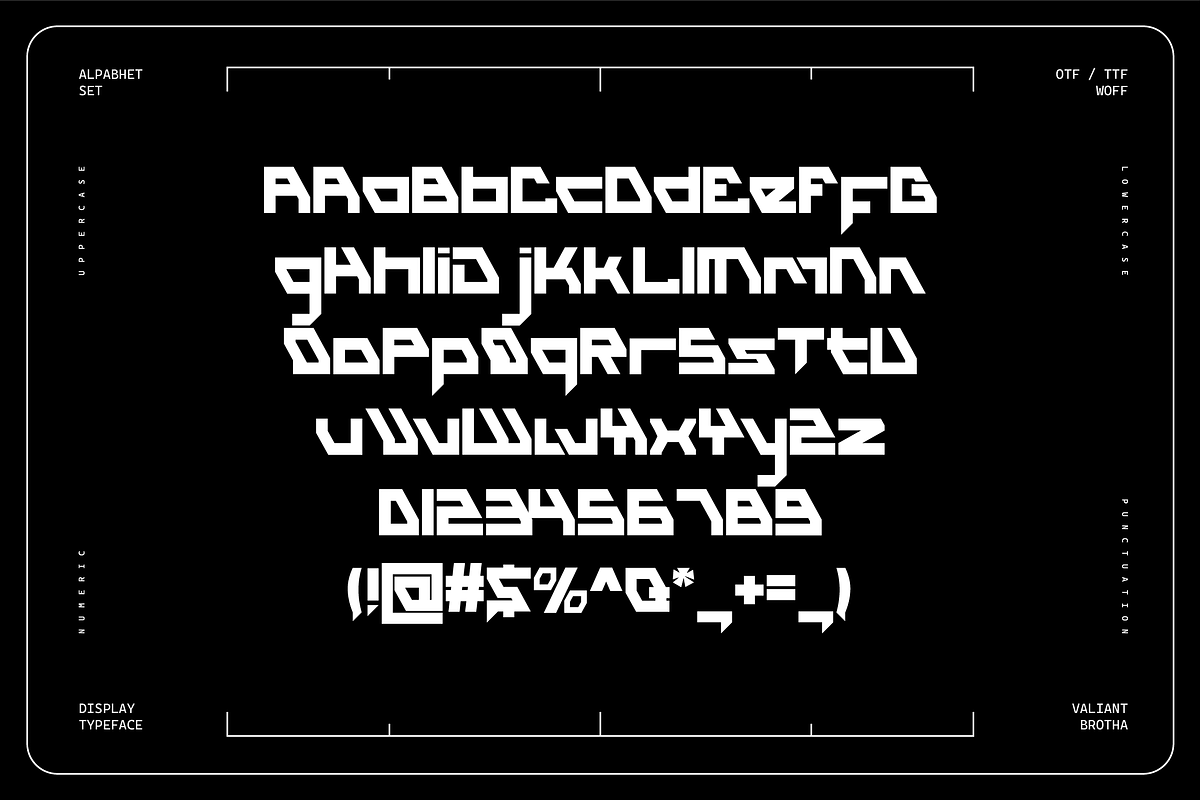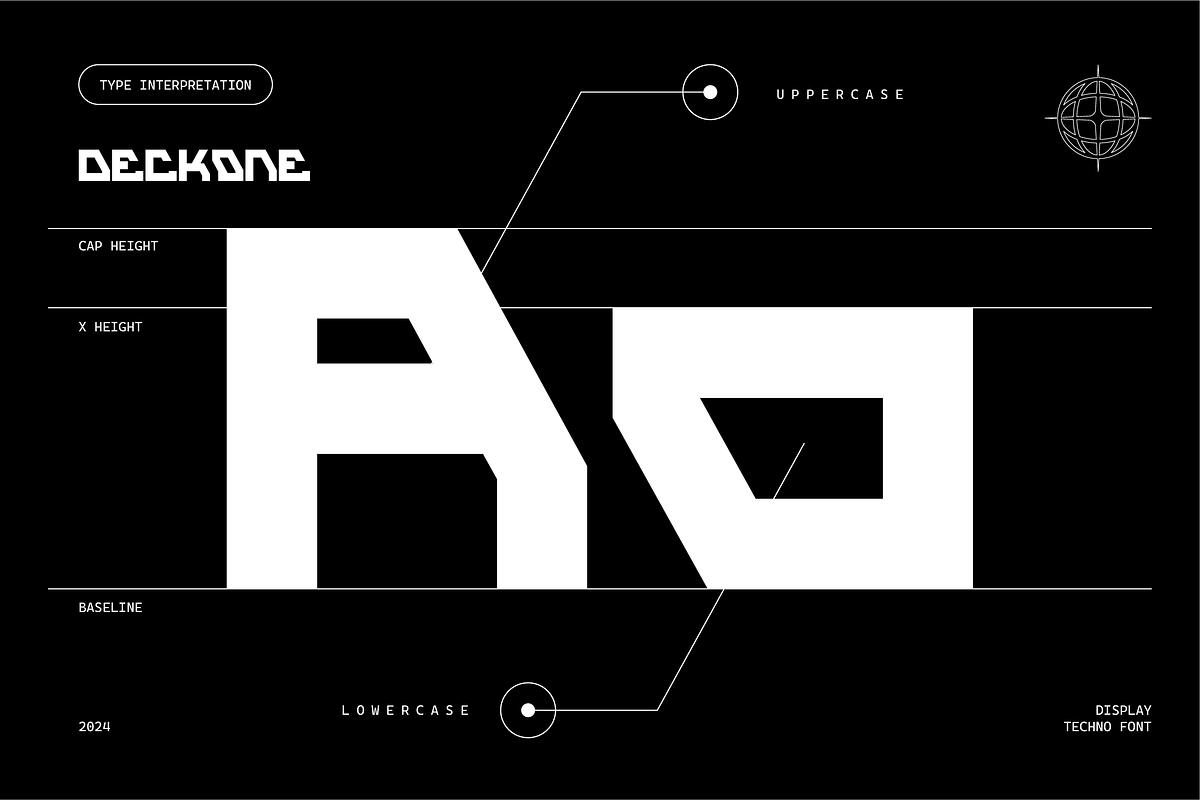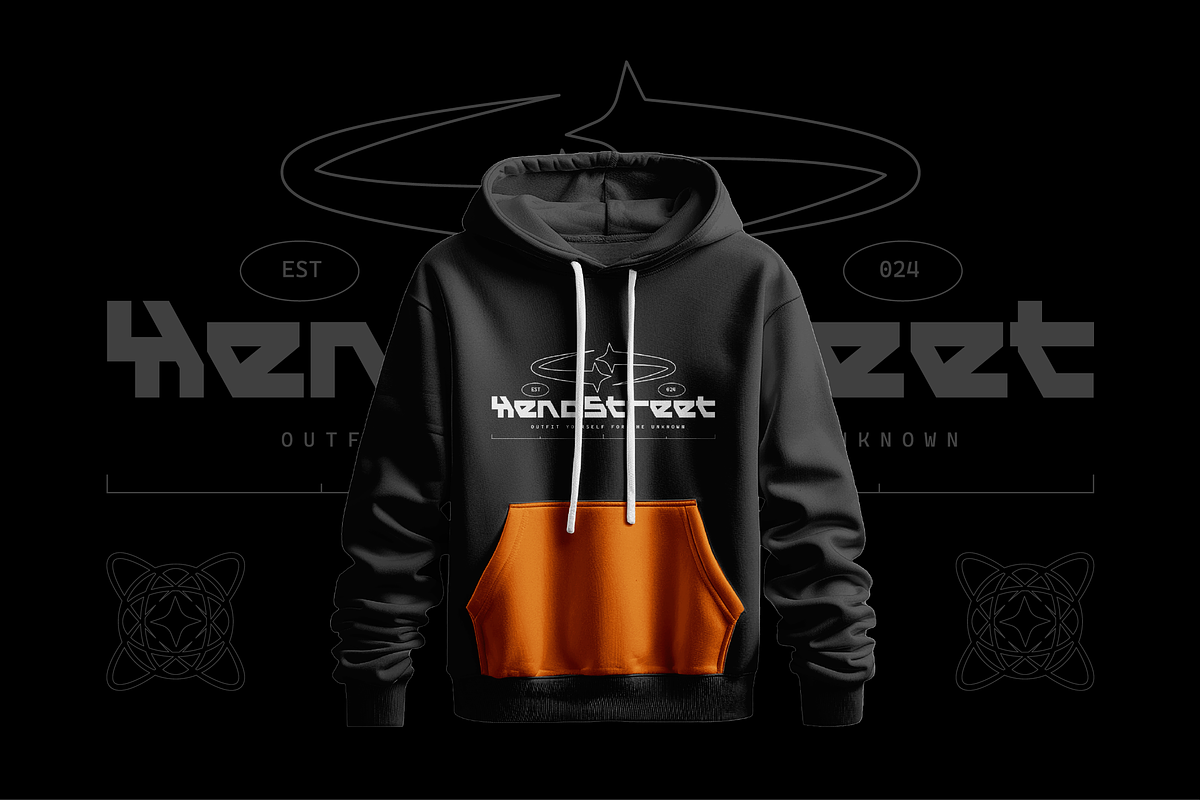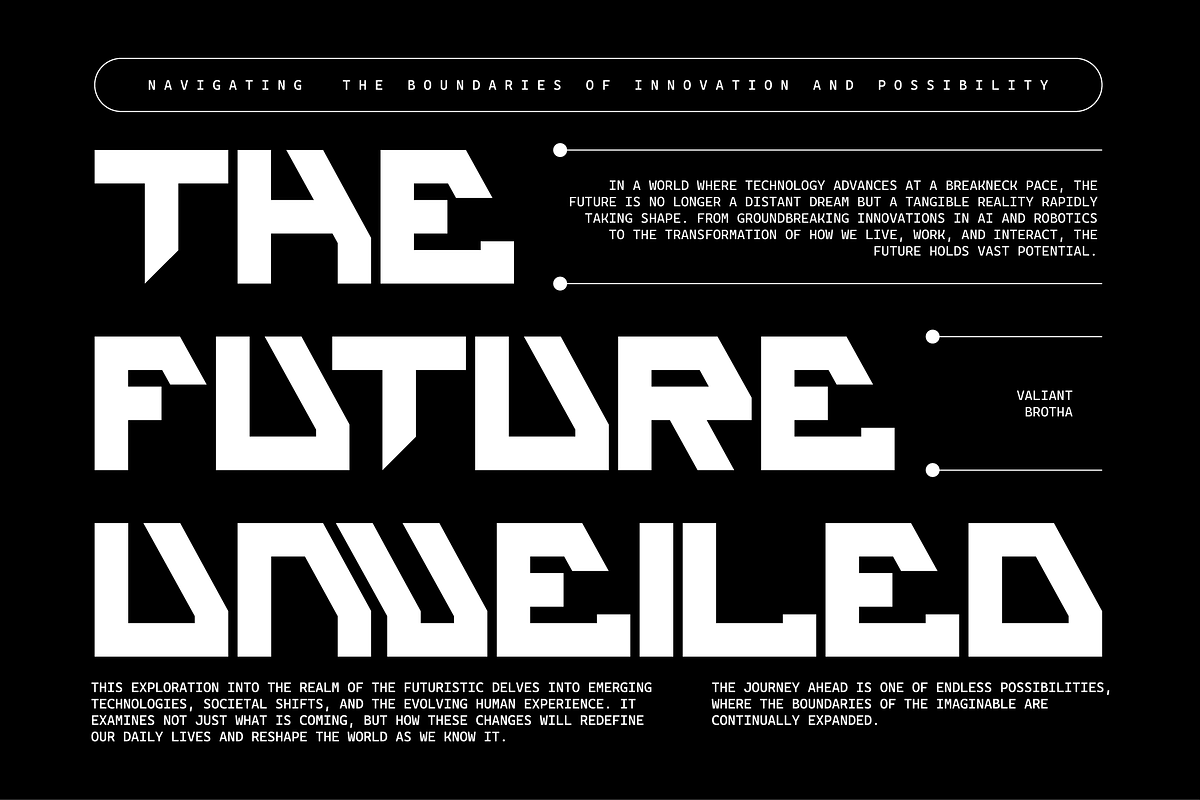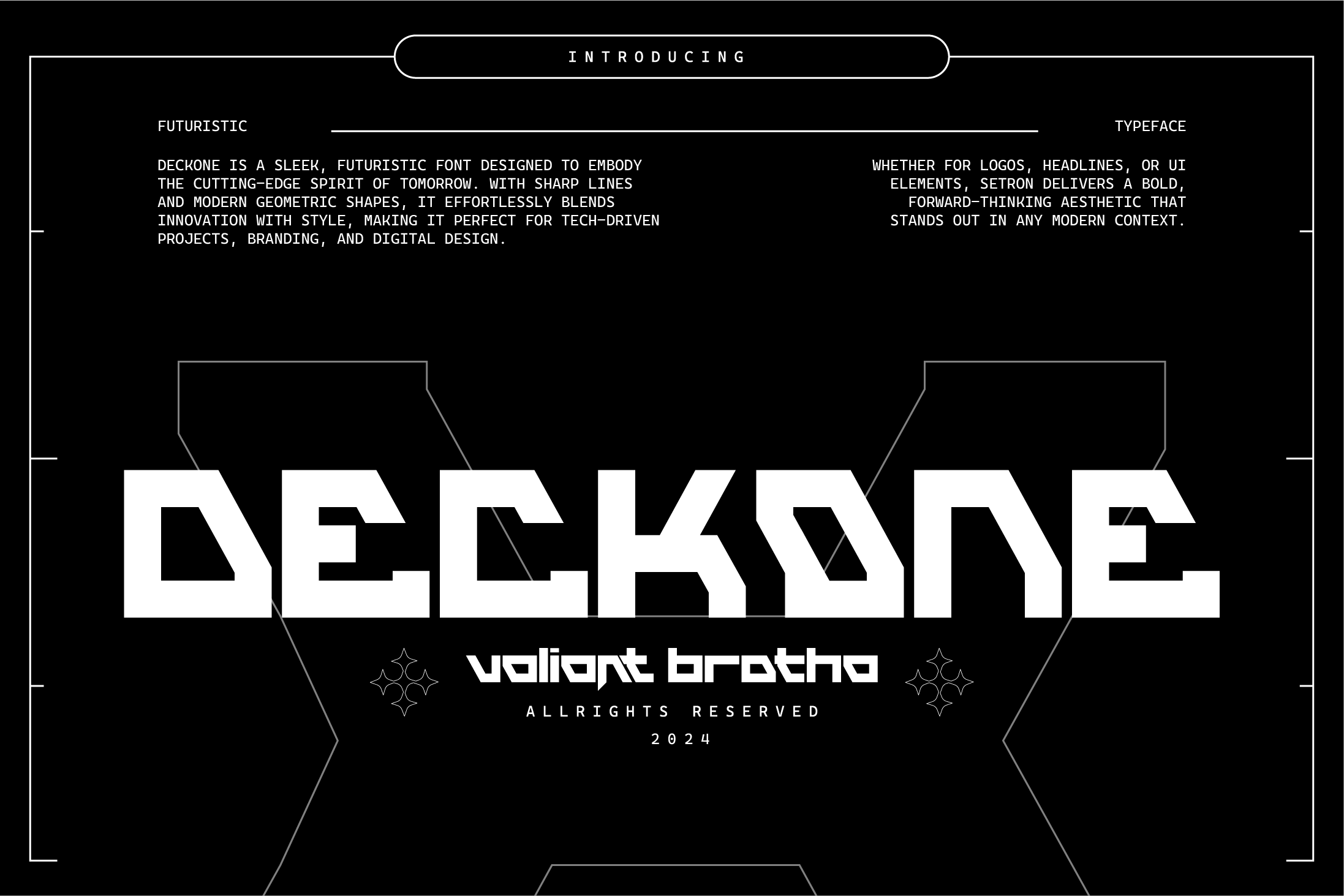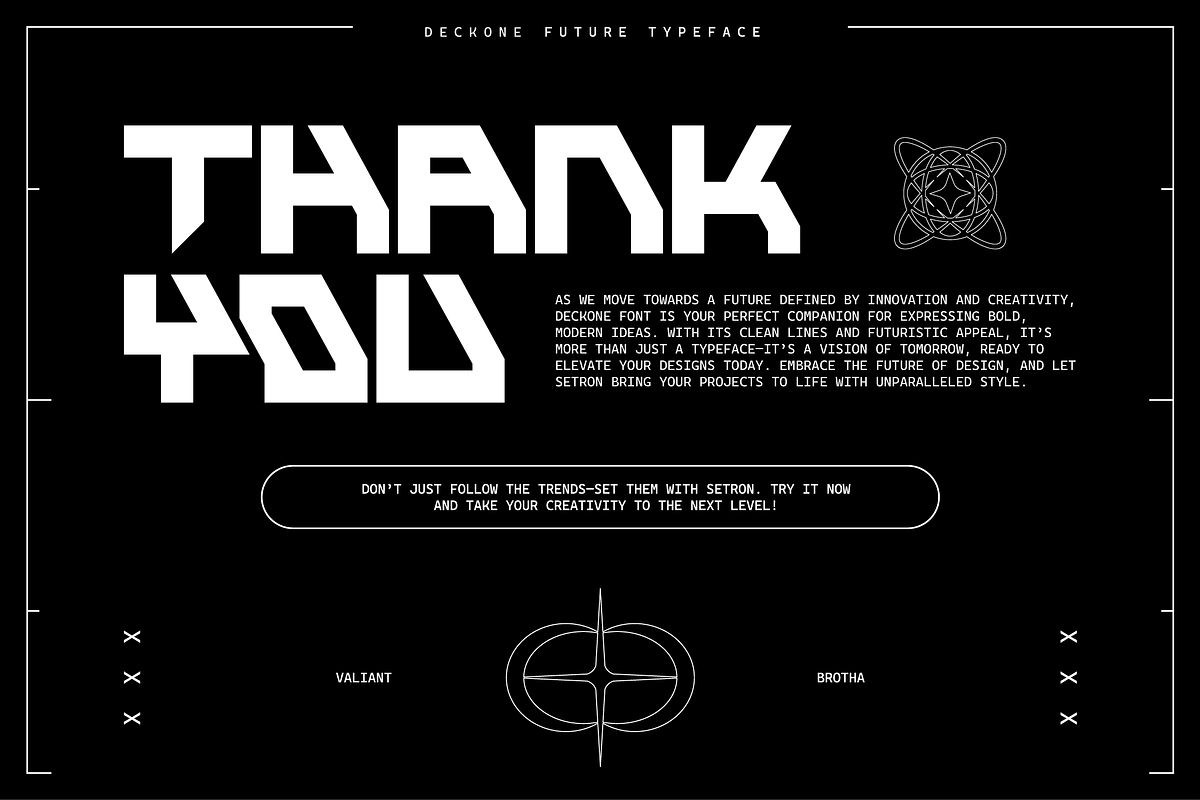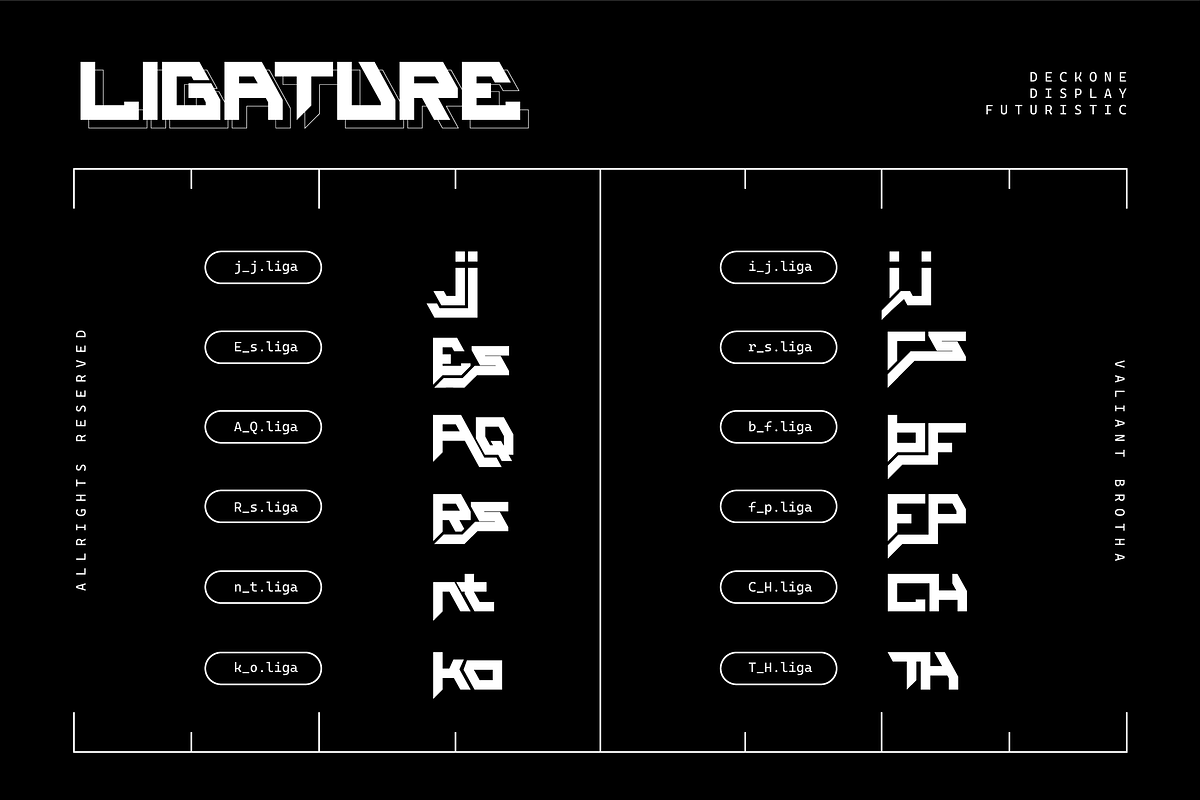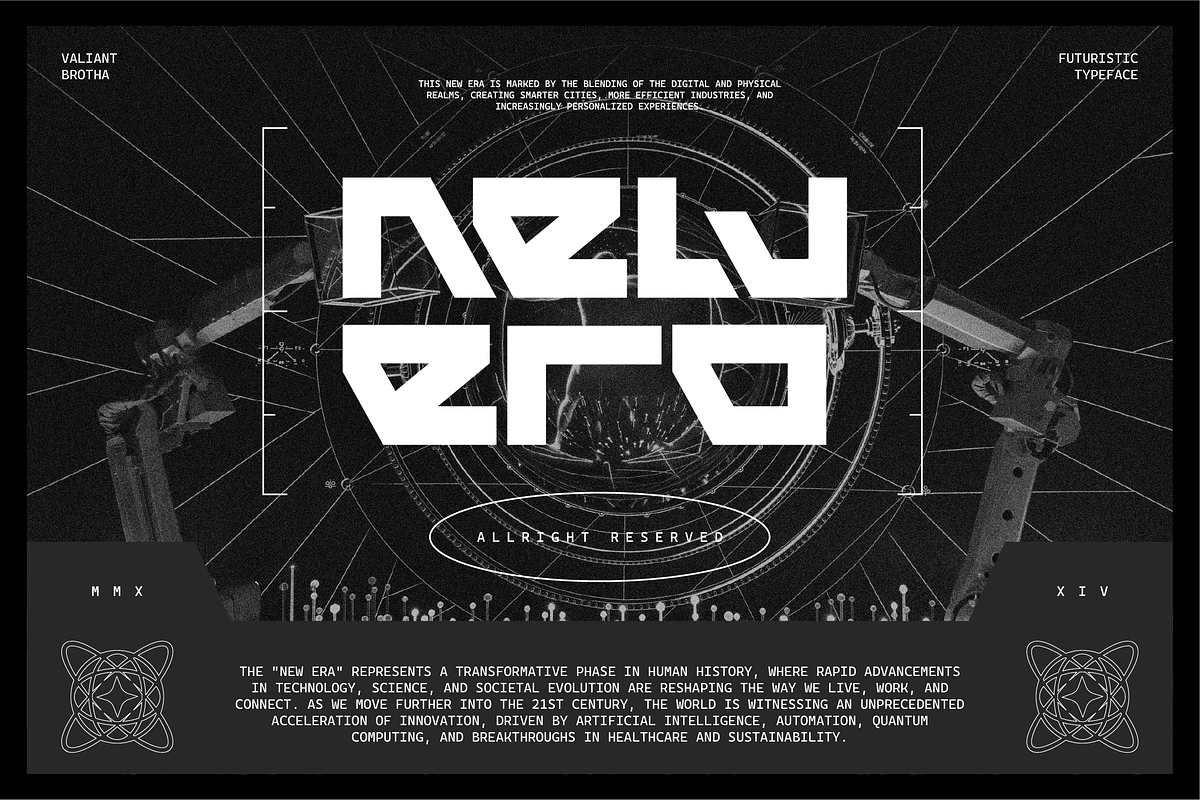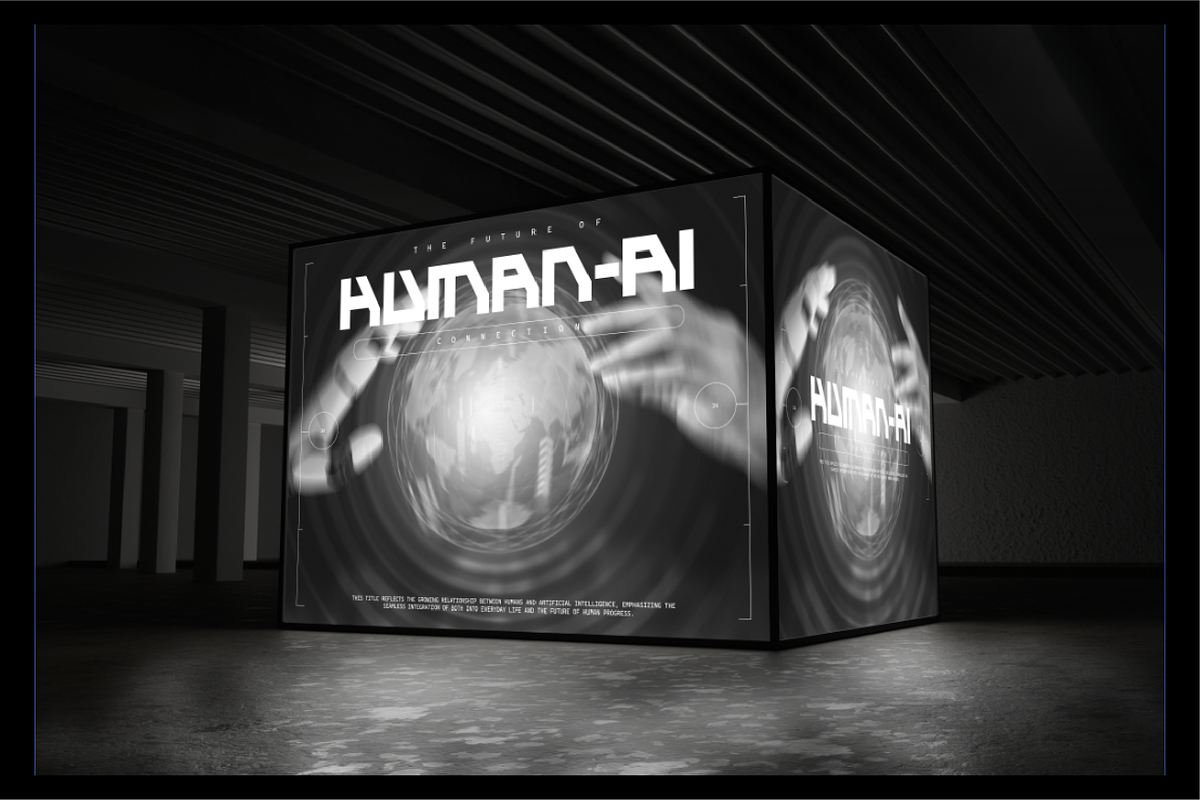
VB DeckOne - Futuristic Font
DeckOne is a sleek, futuristic font designed to embody the cutting-edge spirit of tomorrow. With sharp lines and modern geometric shapes,.